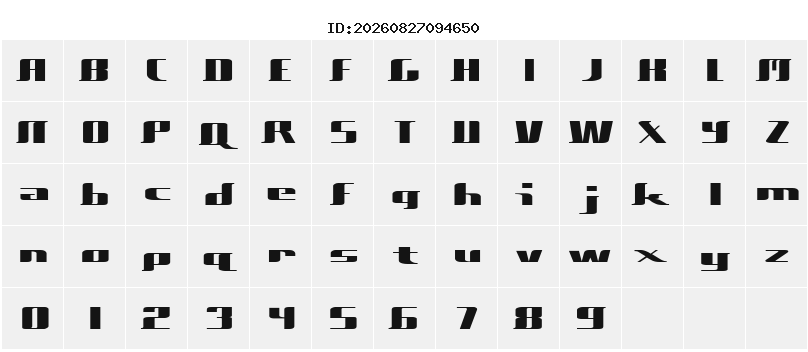
345-CAI978 Preview
• Font Name: 345-CAI978
• Font Style: 345-CAI978
• Full Font Name: 345-CAI978
• PostScript Name: 345-CAI978
About 345-CAI978.ttf
345-CAI978.ttf is a modern, elegant sans-serif font designed for ultimate readability and visual harmony. Perfect for branding, headlines, web design, and print materials.